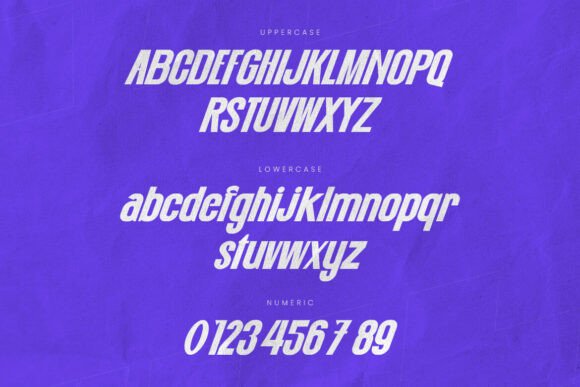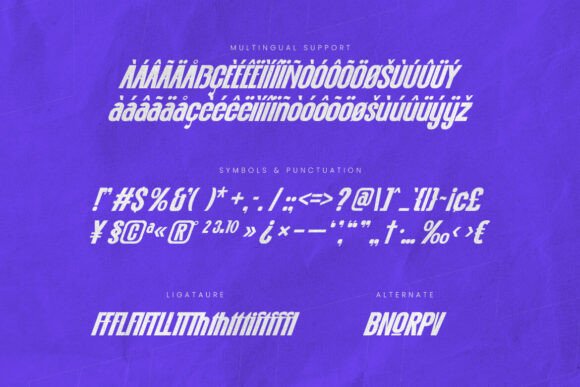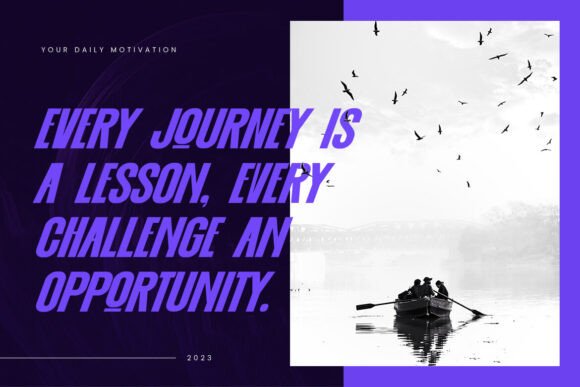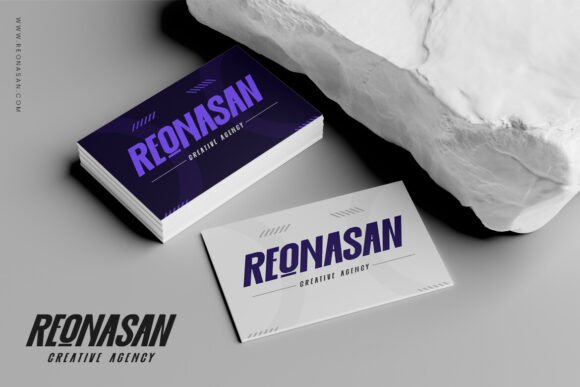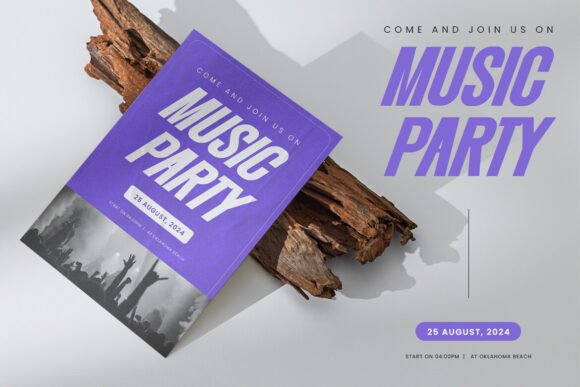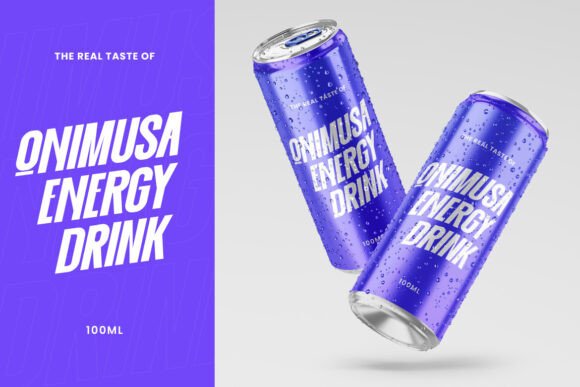
Introduction to Misimiliano Font
Have you ever stared at a blank page, trying to conjure up the perfect font to bring your creative project to life? The cursor blinks, taunting you, until suddenly, a spark of inspiration hits – the perfect font emerges, elevating your design to new heights. For designers seeking that elusive combination of elegance and modernity, the answer lies in the Misimiliano Font.
This stunning, high-quality font is a game-changer for any design resource. With its unique blend of sharp angles and flowing letterforms, Misimiliano Font adds a touch of sophistication to even the most complex projects. Whether you’re working on a luxury branding campaign, a fashion editorial, or product packaging, this versatile font is sure to make a lasting impression.
Key Features of Misimiliano Font
- High-quality design: Misimiliano Font offers a unique and stylish design perfect for creative projects that require a touch of elegance.
- Transparent background: This feature makes it easy to customize and use the font with any design resource, allowing for seamless integration.
- High-resolution design: Misimiliano Font is designed with high resolution in mind, making it suitable for use in large-scale designs and print materials.
- Unique characteristics: The font features a distinctive and modern style, making it an excellent choice for designers looking to add a creative touch to their projects.
Honest Review: Misimiliano Font
I recently stumbled upon the Misimiliano Font and was excited to give it a try in my current creative project. As a designer, I appreciate high-quality fonts that can elevate the overall aesthetic of my work. Upon initial inspection, I was impressed by the sleek and modern design of the Misimiliano Font.
One of the standout features of this font is its versatility. It works well in a variety of settings, from digital displays to printed materials. I particularly like using it for headings and titles, as it adds a touch of sophistication and elegance to my designs.
- High-quality design that’s perfect for modern creative projects
- Works well with transparent backgrounds, allowing for seamless integration into digital designs
- ⚠️ Limited character set, which may not be ideal for longer blocks of text
- ⚠️ Not suitable for use as a primary font for body text, due to its modern and attention-grabbing nature
Overall, I’m impressed with the Misimiliano Font and would recommend it to designers looking for a high-quality, modern font to add some flair to their creative projects.
Common Use Cases for Misimiliano Font
Misimiliano Font is suitable for a wide range of creative projects, including business cards, brochures, and social media graphics. Its high quality and transparent background make it an ideal choice for designers seeking a unique and eye-catching design resource.